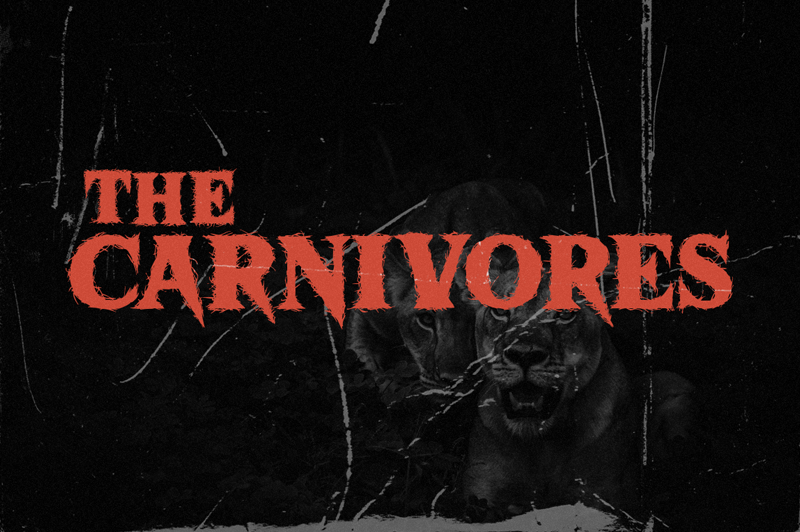
Personal Use Only. Obtain a Commercial License here: https://sellfy.com/p/kh6vrg/ About this font: Sharkbite is the face of fierce and disorder. The typeface for your rock metal attitude. Our fonts are proven contagious so let the creativity spread on! Features: Regular | Italic | Multilingual | OTF | TTF |